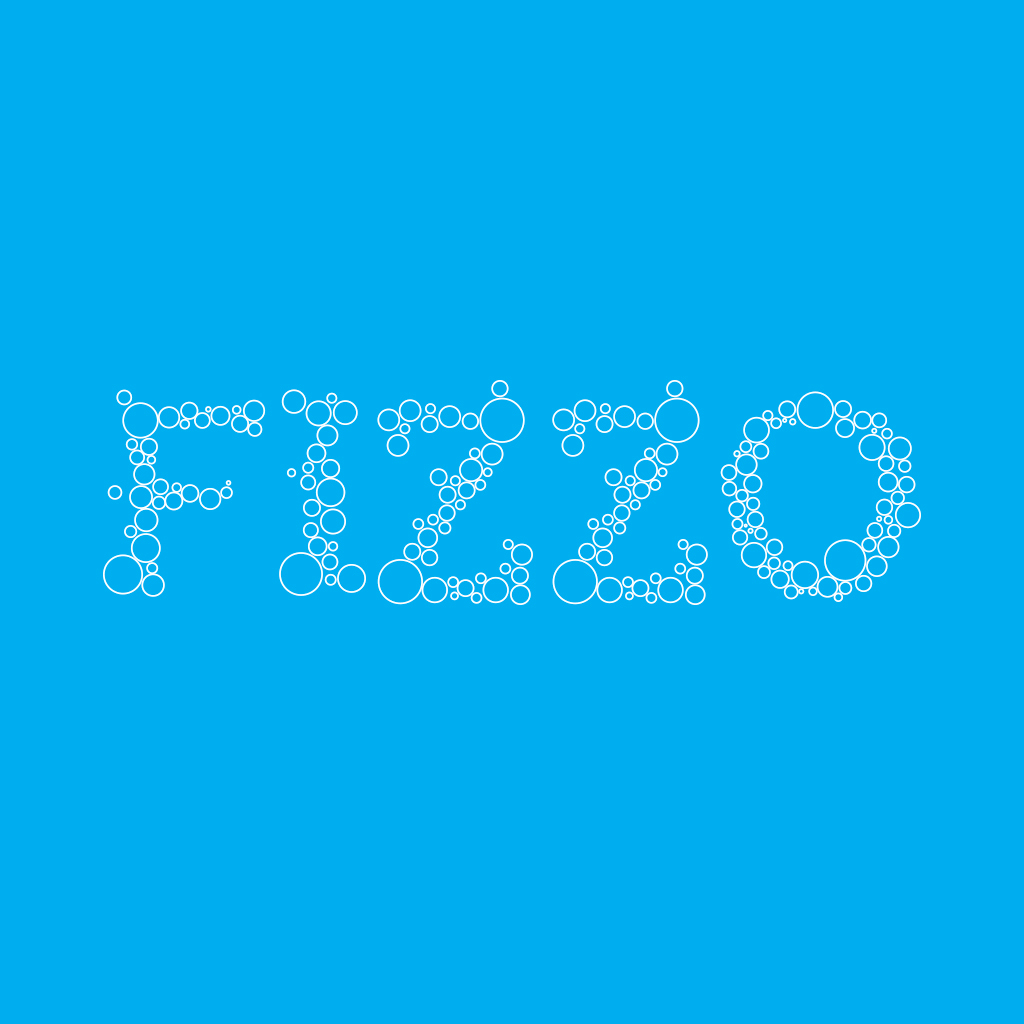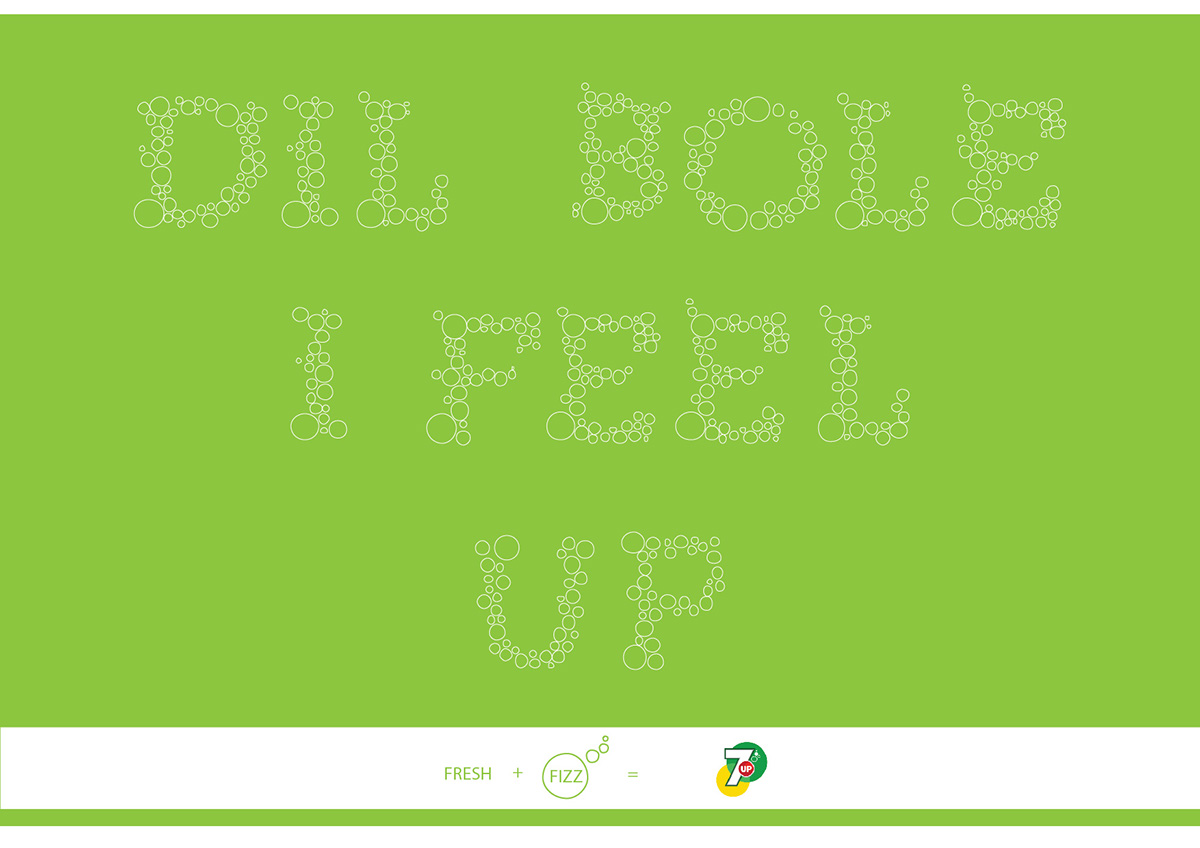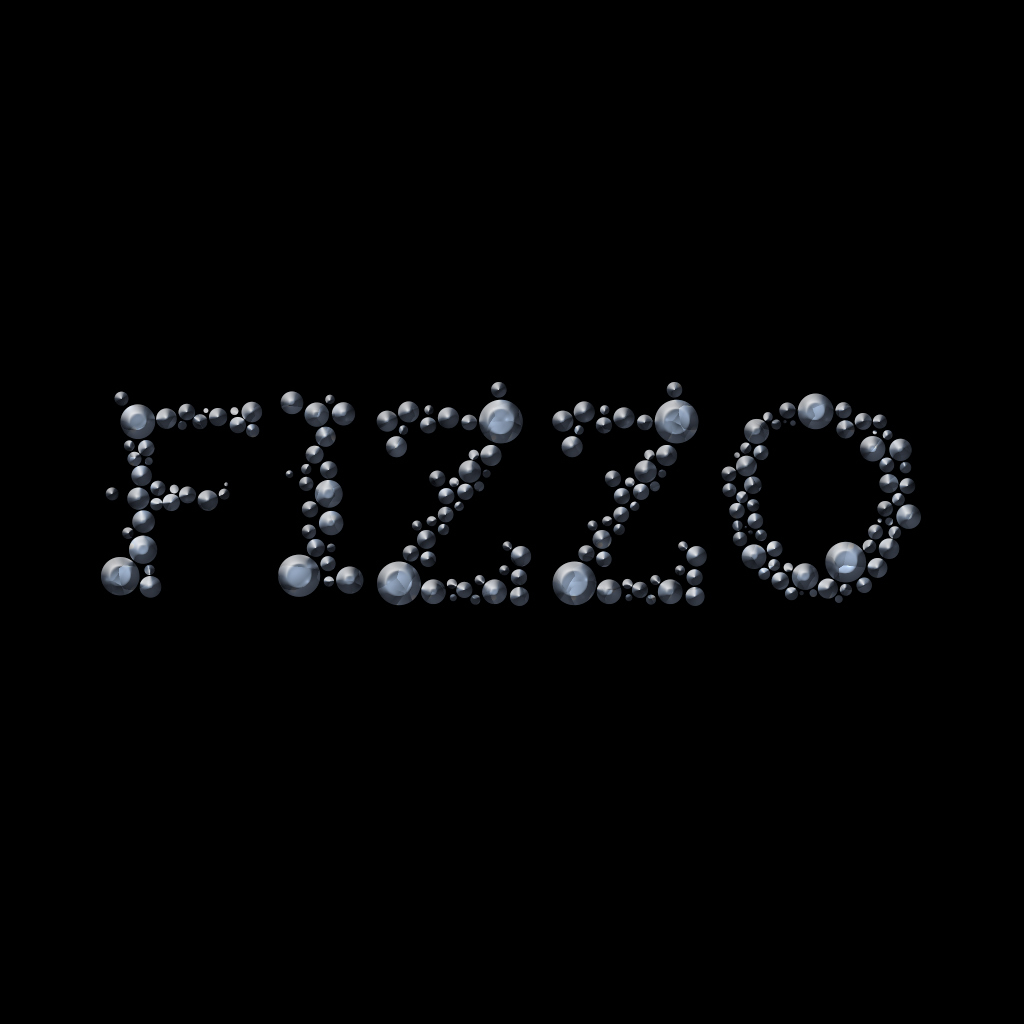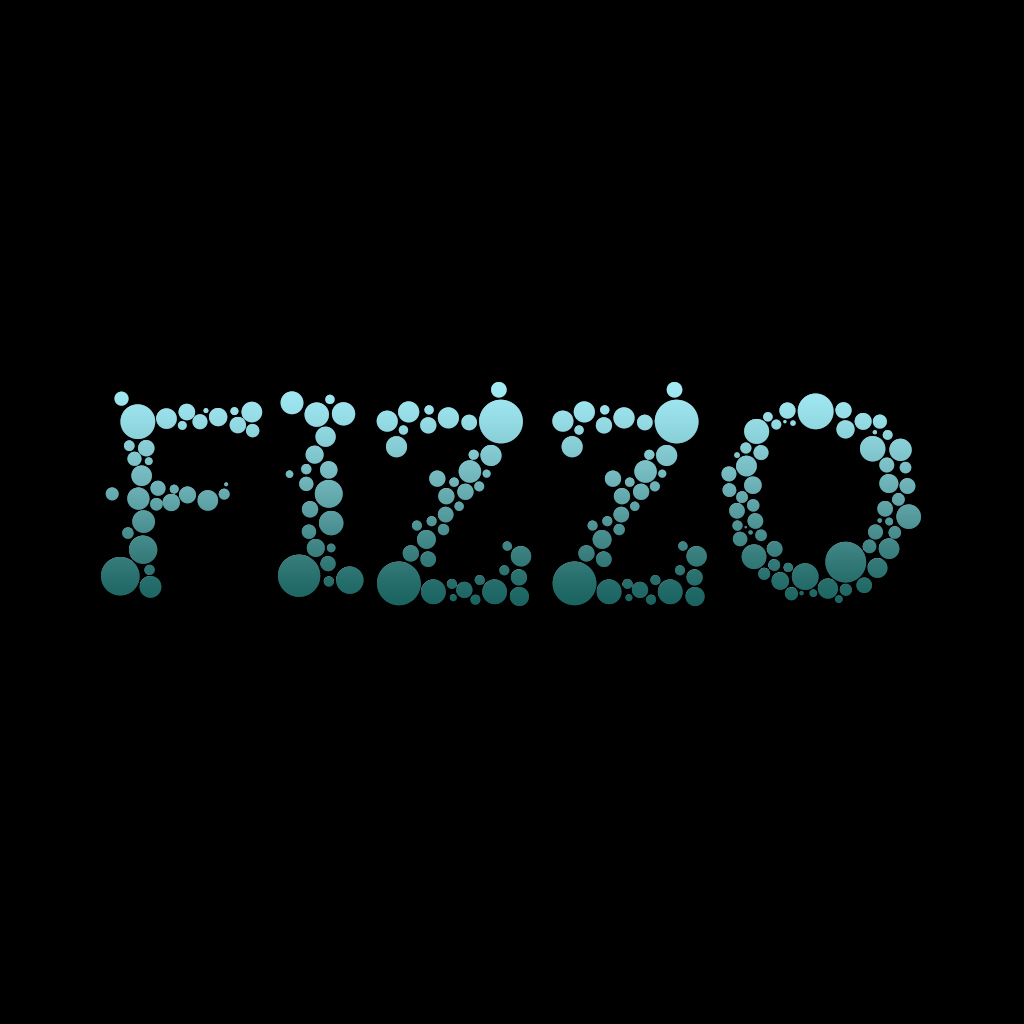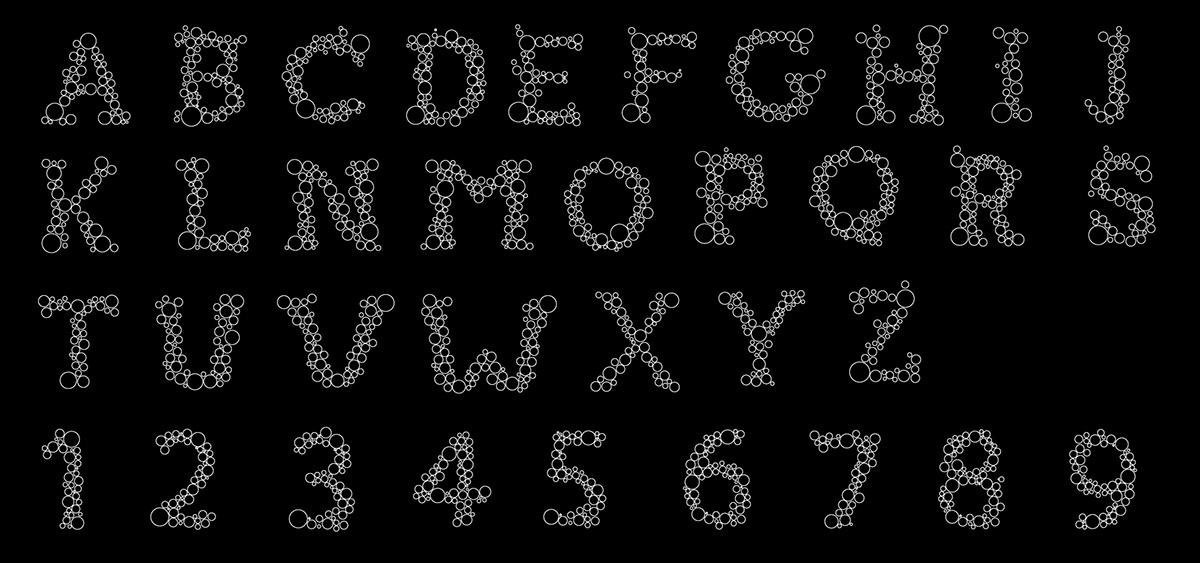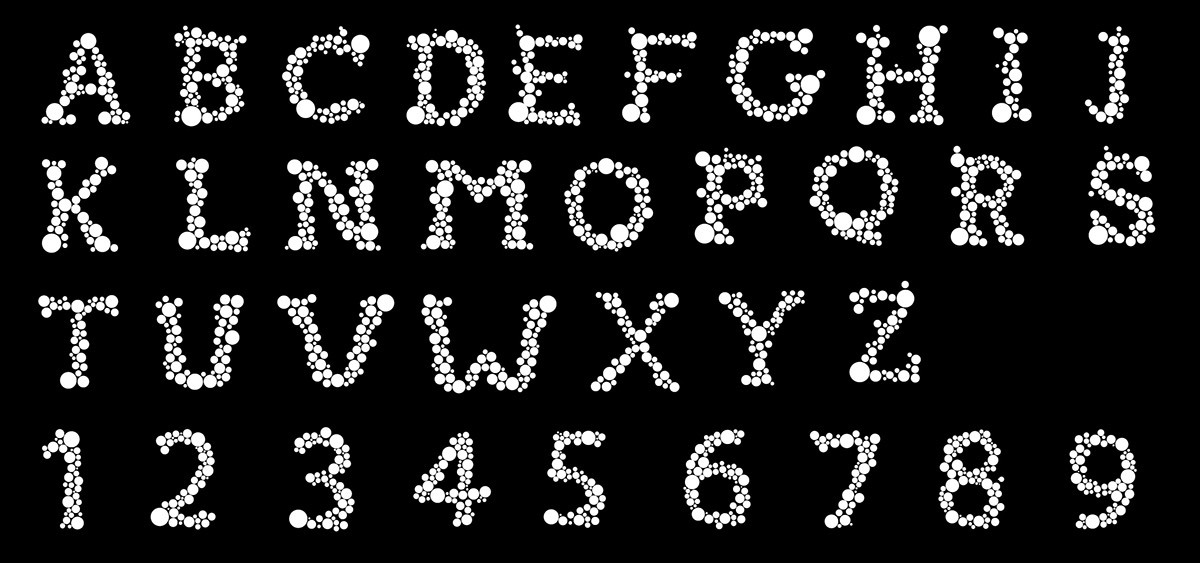
Fizzo Font: Elevate Your Designs with this Stunning Typeface
Are you a designer, crafty enthusiast, or simply someone who appreciates beautiful typography? Look no further than the Fizzo Font, a gorgeous typeface that can elevate your designs to new heights. In this article, we’ll dive into the world of Fizzo, exploring its features, uses, and benefits, and why it’s a must-have for any creative project.
The Beauty of Fizzo Font
Fizzo is a beautiful typeface which can be used for various purposes such as: headings, logos, book covers, posters and much more! Its unique design makes it stand out from other fonts, with elegant lines, curves, and a touch of sophistication. Whether you’re creating a stunning logo, a captivating poster, or a professional book cover, Fizzo Font is the perfect choice.
Key Features of Fizzo Font
- Unique Design: Fizzo Font boasts a distinctive design that sets it apart from other typefaces. Its elegant lines and curves make it perfect for creating visually appealing designs.
- Versatility: Fizzo Font is incredibly versatile, making it suitable for a wide range of applications, from headings and logos to book covers and posters.
- High-Quality: Fizzo Font is a high-quality typeface, designed to deliver crisp and clear results, even at large sizes.
Uses of Fizzo Font
Fizzo Font is an incredibly versatile typeface, making it perfect for various design projects. Here are some of the many uses of Fizzo Font:
- Headings and Titles: Use Fizzo Font to create stunning headings and titles that grab attention and add a touch of elegance to your designs.
- Logos and Branding: Fizzo Font is perfect for creating unique and memorable logos that reflect your brand’s personality and style.
- Book Covers: Add a touch of sophistication to your book covers with Fizzo Font, making your book stand out on bookshelves and online.
- Posters and Flyers: Create eye-catching posters and flyers with Fizzo Font, perfect for promoting events, products, or services.
Benefits of Using Fizzo Font
So, why choose Fizzo Font for your design projects? Here are some benefits of using this stunning typeface:
- Enhance Your Designs: Fizzo Font can elevate your designs, adding a touch of elegance and sophistication that sets them apart.
- Save Time: With Fizzo Font, you can create professional-looking designs quickly and easily, saving you time and effort.
- Stand Out: Fizzo Font is a unique typeface that can help your designs stand out in a crowded market, making your brand or product more memorable.
Tips for Using Fizzo Font
To get the most out of Fizzo Font, here are some tips to keep in mind:
- Experiment with Sizes: Fizzo Font looks great at various sizes, so experiment to find the perfect size for your design.
- Pair with Other Fonts: Fizzo Font pairs well with other fonts, so don’t be afraid to combine it with other typefaces to create a unique look.
- Use it Consistently: Use Fizzo Font consistently across your designs to create a cohesive brand identity.
| Font Name | Fizzo Font |
| Author | ravi.rafa |
In conclusion, Fizzo Font is a stunning typeface that can elevate your designs to new heights. With its unique design, versatility, and high-quality features, it’s perfect for a wide range of applications, from headings and logos to book covers and posters. Whether you’re a designer, crafty enthusiast, or simply someone who appreciates beautiful typography, Fizzo Font is a must-have for any creative project.